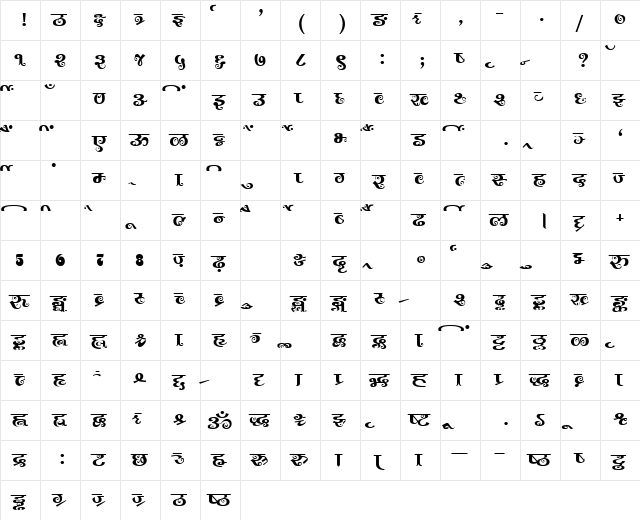
AkrutiDevChampa Normal Font Preview
AkrutiDevChampa Normal
Design Context for AkrutiDevChampa Typeface
AkrutiDevChampa offers clean, dependable letterforms without strong stylistic allegiance, making it a practical choice for designers who need flexibility.